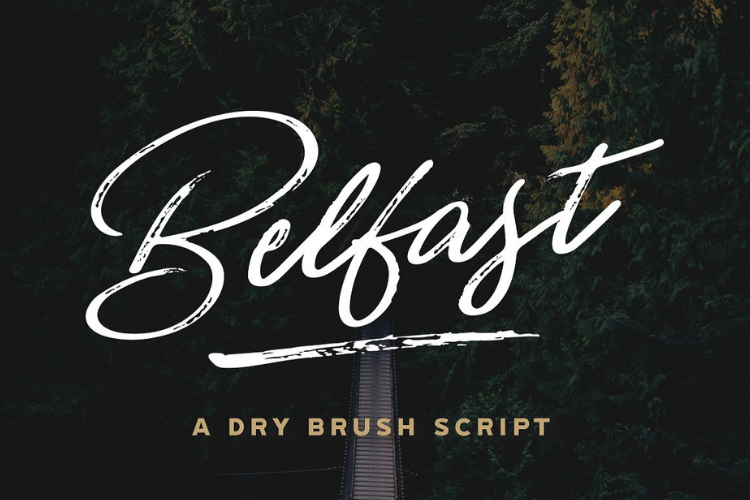
Belfast - A Dry Brush Script
Introducing Belfast - A Dry Brush Script
Belfast is brush typeface with a very naturally hand written look & just the right amount of texture. Balancing between elegant and badass. It's a great typeface for Logotypes, Signatures, Wedding Invitations, Business Cards, Titles, Prints, Apparel, you name it.
• 228 Crafted Characters
• Western European Characters
• Alternates & Ligatures
• An Oblique Version of "Belfast"
• 26 Alternate lowercase characters for ending your word
Belfast works for so many different applications and styles. It looks incredible with Goldleaf, Watercolor, India Ink textures. It looks great as a stand alone piece of your Logo or Label.Belfast is just what you've been looking for!